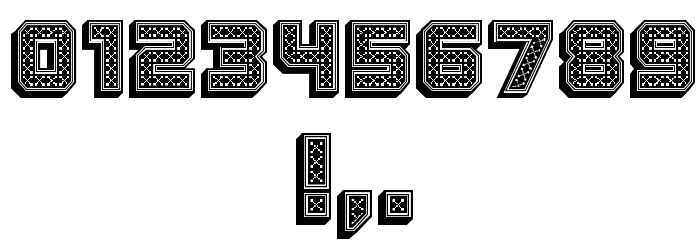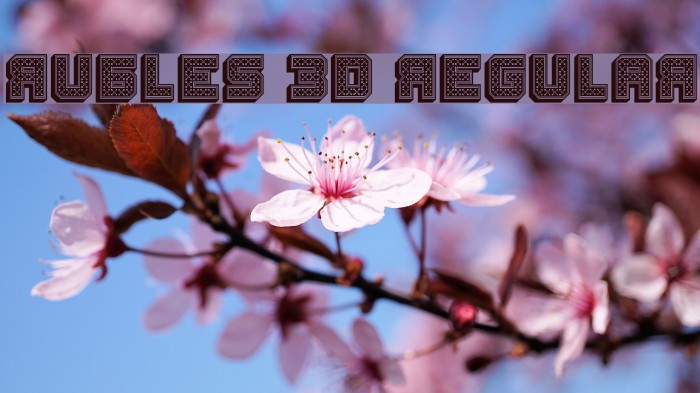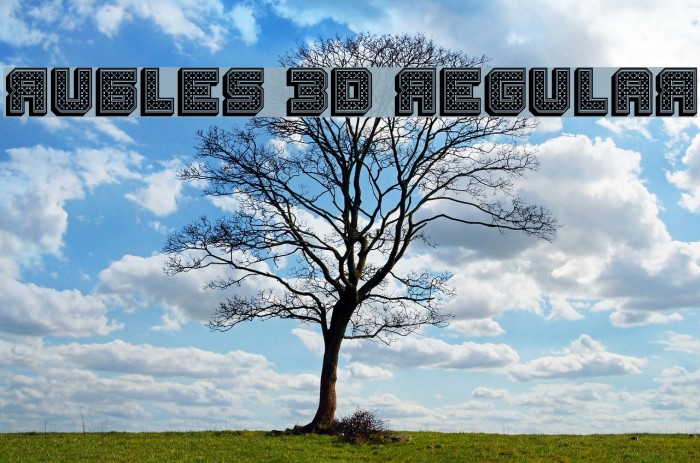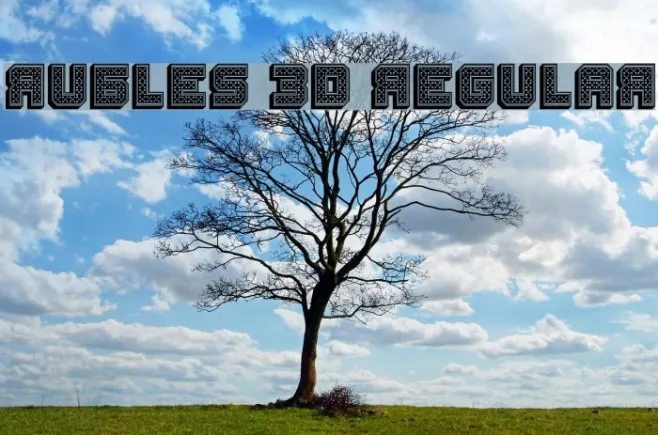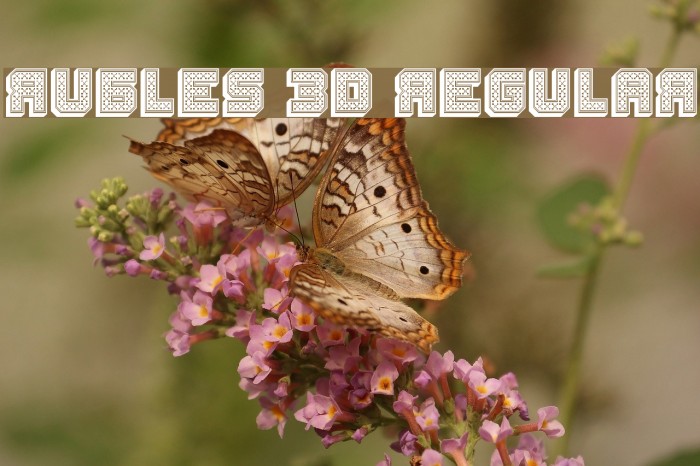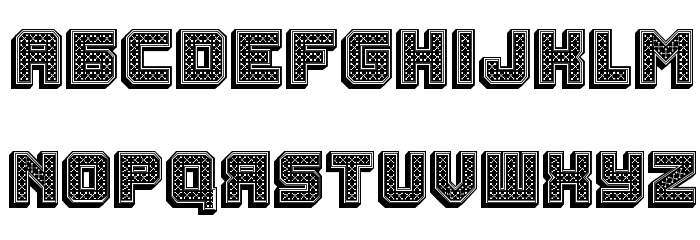
Rubles 3D Regular Font
Rubles 3D Regular Description
This font features a bold, three-dimensional design with a decorative pattern inside each character. The letters and numbers are outlined with a thick border, giving them a strong and impactful appearance. The internal pattern consists of small geometric shapes, adding a unique texture and visual interest to the font. The style is reminiscent of retro or vintage designs, making it suitable for projects that require a distinctive and eye-catching typeface.
Proposed ProjectsIdeal for posters, logos, video game graphics, and any project needing a standout, retro-inspired typeface.